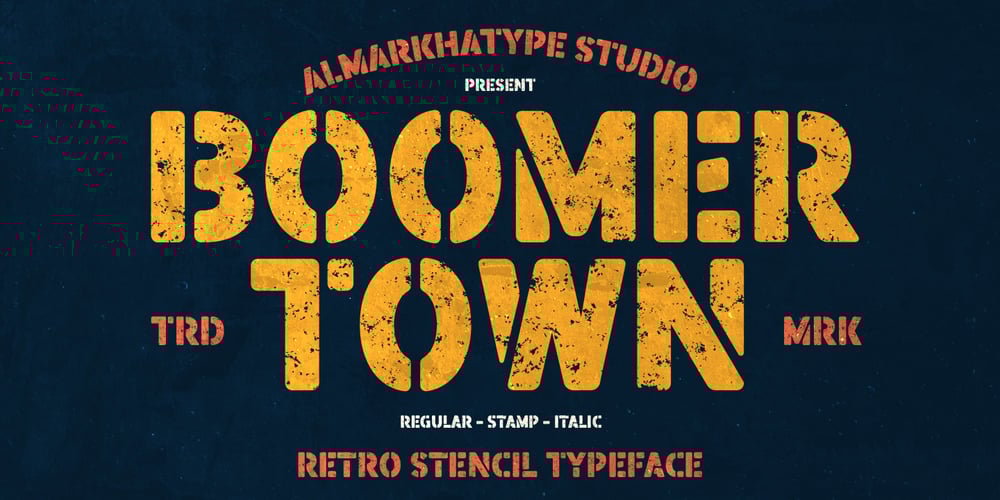
Boomer Town Font Family was designed by Abdul Malik Wisnu, Rivo Adriansyah and published by Almarkha Type. Boomer Town contains 3 styles and family package options. Introducing Boomer Town, your go-to stencil military font now in three dynamic styles: regular, rough, and italic. Infused with nostalgic flair, this font injects vigor and individuality into your designs. Inspired by the Retro Poster arts and architectural movement, Boomer Town boasts meticulously crafted letters that amplify every design.Perfect for a plethora of projects, Boomer Town empowers you to craft compelling designs, captivating headlines, eye-catching posters, memorable logos, badges, and beyond. Its versatility shines in any design application, promising to elevate your creative endeavors. Experience the unmatched flexibility of Boomer Town for your next project!Accessible in Adobe Illustrator, Adobe Photoshop, Adobe InDesign, and even work on Microsoft Word. PUA Encoded Characters – Fully accessible without additional design software. Fonts include multilingual support Image used: All photographs/pictures/vectors used in the preview are not included, they are intended for illustration purposes only.